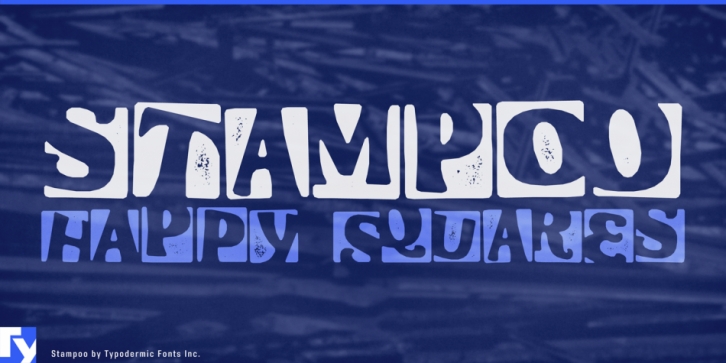
Stampoo is a grunge font published by Typodermic Fonts Inc.
Stampoo is a happy rubber stamp font. In OpenType savvy applications, letter pair autoligs help break up the monotony of obviously repeating letters.